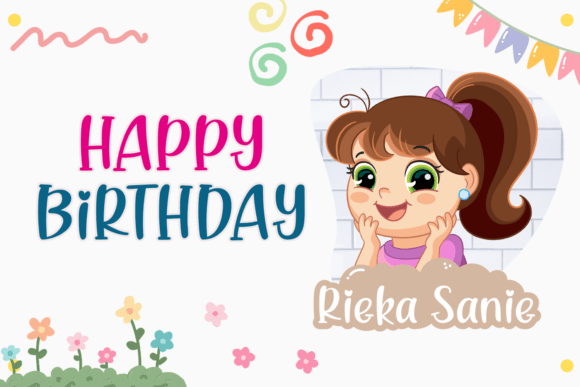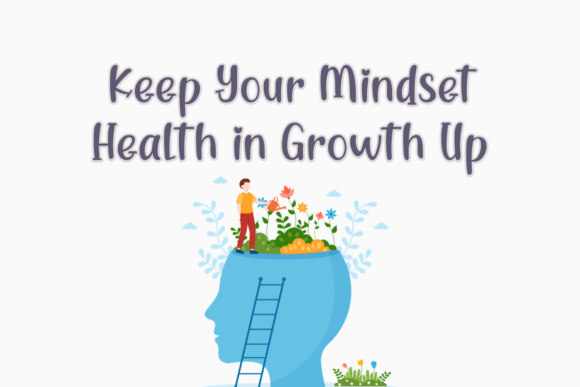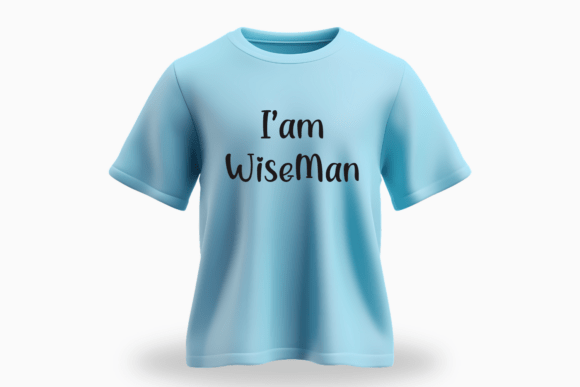
Introduction to Kids Mind Font
Have you ever stared at a blank canvas, searching for the perfect font to bring your creative project to life? The moment of truth arrives when you finally find that one font that speaks to your vision, elevating your design from ordinary to extraordinary. For designers, discovering the right font can be a game-changer, making all the difference between a mediocre layout and a stunning work of art.
That’s where the enchanting Kids Mind Font comes in – a beautiful, handcrafted font that’s sure to captivate your audience. With its elegant lines and sleek design, Kids Mind Font is the perfect addition to any creative project. Whether you’re working on a free download or a high-quality design, this versatile font is sure to bring a touch of sophistication to your work.
Key Features of Kids Mind Font
- High-quality design resource suitable for a creative project
- Unique, playful characters designed to engage children
Honest Review: Kids Mind Font
I recently came across the Kids Mind Font, a free download that caught my attention due to its unique and playful design. As a designer, I’m always on the lookout for high-quality design resources that can elevate my creative projects.
The Kids Mind Font is a great addition to any design project, especially those focused on children or education. The font features a bright and colorful design, perfect for creating eye-catching graphics and text. Here are some of its standout features:
- ✨ High-quality design with a transparent background, making it easy to use in various design projects.
- ✨ Great for creating fun and engaging graphics, perfect for children’s books, educational materials, and more.
However, I did encounter a few limitations with the Kids Mind Font:
- ⚠️ Limited character set, which may not be suitable for longer texts or professional projects.
- ⚠️ Not ideal for use in situations where a more formal or traditional font is required.
Overall, I’m impressed with the Kids Mind Font, and I would definitely recommend it for designers working on creative projects that require a playful and colorful touch. Just keep in mind its limitations and use it accordingly.
The Kids Mind Font is perfect for a variety of creative projects, including children’s educational materials, party invitations, and marketing campaigns targeting families. Its playful and modern design makes it an excellent choice for any project requiring a fun and engaging aesthetic.